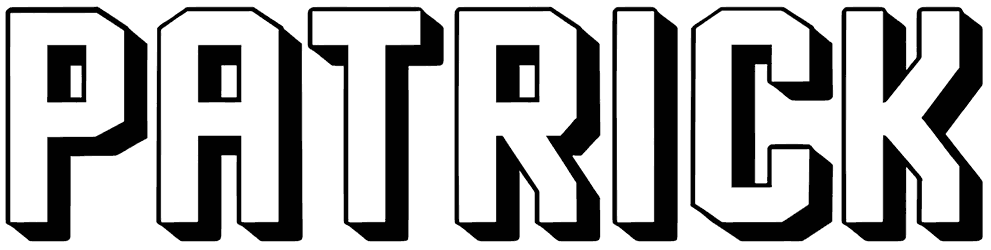
Patrick Font
Patrick is one of the selected fonts in our library, which is very loud, has character, and is integrated with the background. This outline font is an effortless style that has added some depth by adding a shadow.
The classic design of this 3D font can invite the audience to your mental world even without small letters and make them focus for a few moments on posters, advertisements, computer games, and book covers.